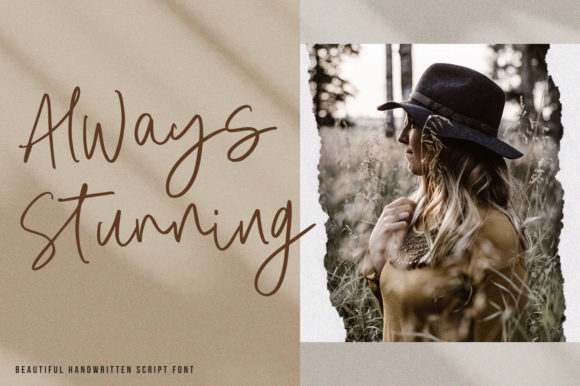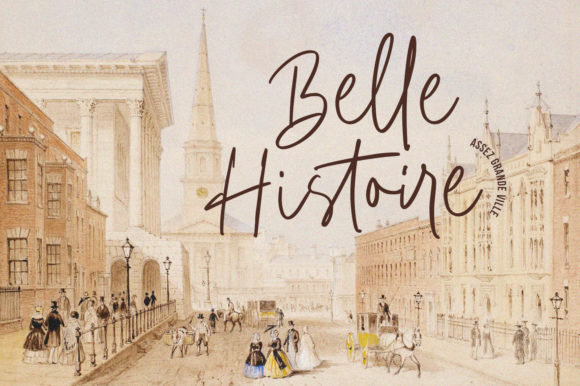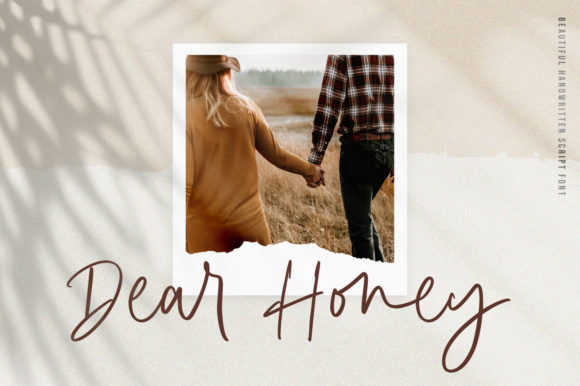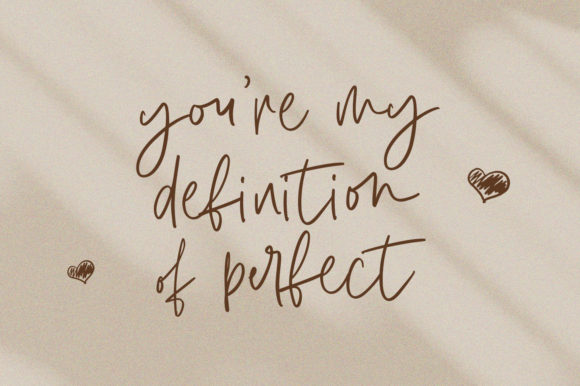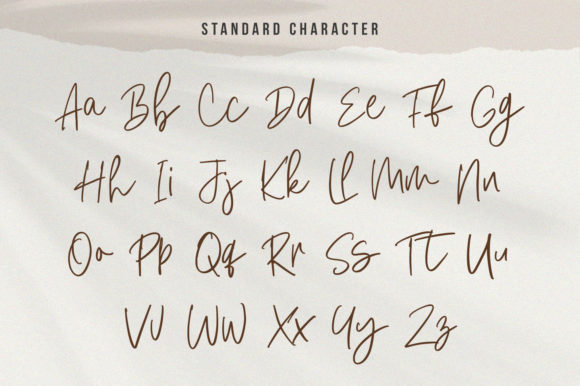
HomeScript FontsAmirah Brillone Font Script Fonts Amirah Brillone Font FacebookXPinterestWhatsApp Amirah Brillone Font Poster 2 Amirah Brillone Font Poster 3 Amirah Brillone Font Poster 4 Amirah Brillone Font Poster 5 Amirah Brillone Font Poster 6 Amirah Brillone Font Poster 7 Amirah Brillone Font Poster 8 About Amirah Brillone Font Amirah Brillone is a bold and fun script with a playful feel. Fall in love with its calligraphic look! DOWNLOAD ON CREATIVE FABRICAThis font is sold and delivered by Creative Fabrica. Font Canyon may earn a commission if you buy through this link. People also explored Lantenia Font Little Monsters Font January Font Amazing Christmas Font Root Flower Lf Font Beckenham Infinite Possibilities Font Leitmotiv Ajinomote Font 316 0 TagsAmirah Brillone Font Previous articleBenedela FontNext articleMongasteen Font LEAVE A REPLY Cancel reply Comment: Please enter your comment! Name:* Please enter your name here Email:* You have entered an incorrect email address! Please enter your email address here Website: Save my name, email, and website in this browser for the next time I comment. Personal Use Free Charletto Personal Use Free Read more about this font 1313 Mockingbird Lane Personal Use Free Read more about this font Axaxax Bold Personal Use Free Read more about this font Party Pooper Personal Use Free Read more about this font BLOG Elegant Wedding Invitation Fonts – Handwritten & Script Fonts Elegant Wedding Invitation Fonts Your wedding day is one of the most important moments of your life, and every detail matters—including your invitation design. Our... Top 10 Handwritten Fonts That Elevate Your Designs Exploring Font Trends Top 7 Google Fonts Alternatives for Faster and Privacy-Friendly Web Design (2025)